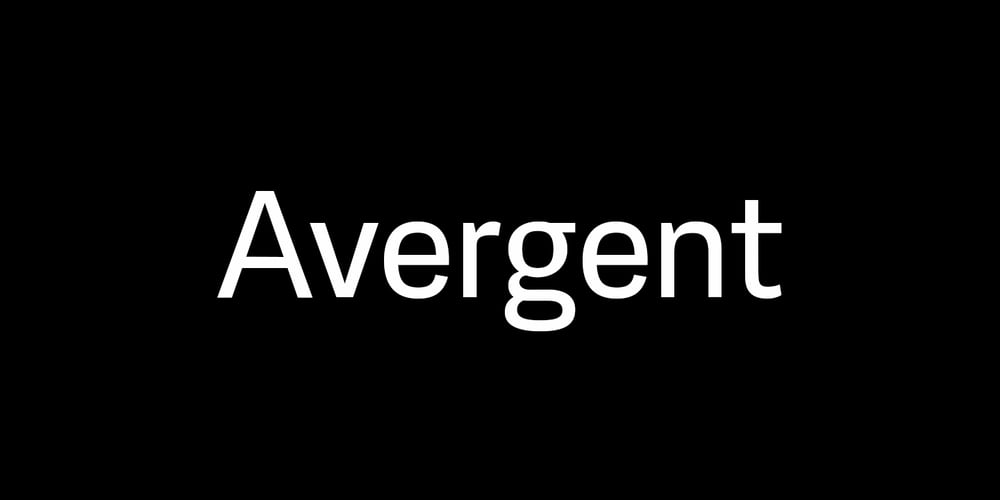
Avergent Font Family was designed by Mukhlis Muhammad and published by Variatype. Avergent contains 2 styles and family package options. ABOUT THIS FONTAvergent is a simple display sans font that designed for modern corporate branding, copy ads, and much more.FONT FEATURES- Additional Accents- Stylistic Alternates- Cyrillic Support- Ligatures- 95 LanguagesSOFTWARE RECOMMENDATION- Adobe Photoshop- Adobe Illustrator- Adobe InDesign- Affinity DesignerOS COMPATIBILITY- Mac OS- Windows